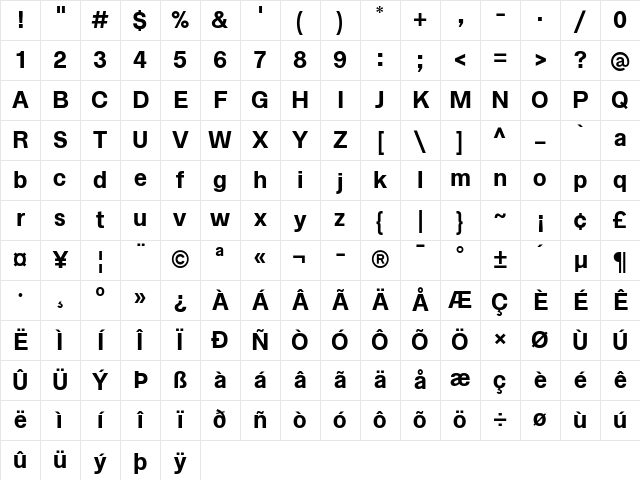
Zwizz Bold Free Font
Zwizz Bold
Foundry: Alfredo Marco Pradil
Designer: Alfredo Marco Pradil
Design Context for Zwizz
Zwizz is a composed and adaptable typeface that performs quietly and consistently across a wide range of design contexts. Its bold stroke weight gives it real presence on the page.